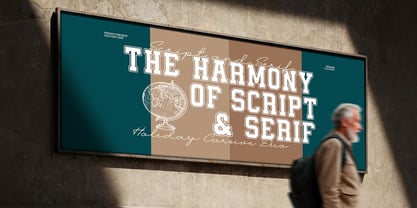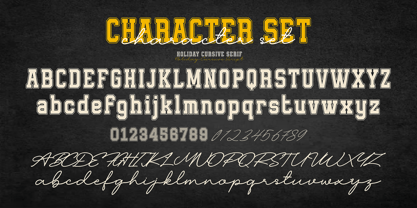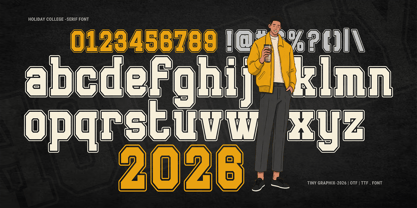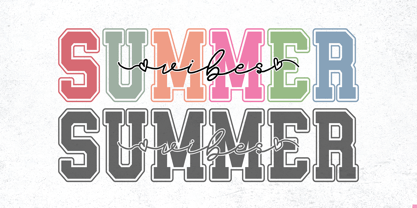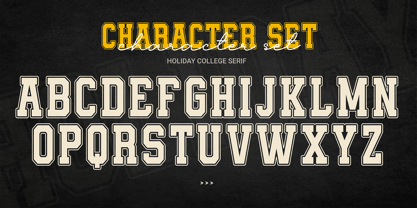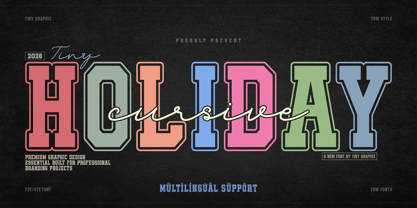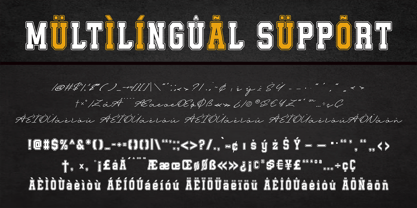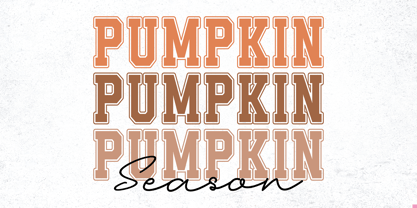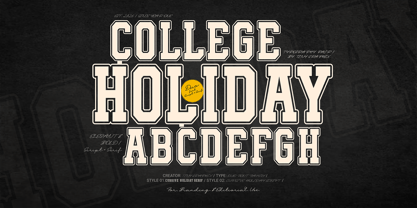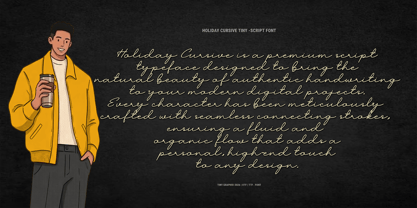
Cursive Holiday
Cursive Holiday Duo is a versatile font pairing designed by Tiny Graphix, specifically curated for high-end branding and modern editorial projects. This collection features a robust, varsity-inspired College Serif and a fluid, organic Cursive Script, offering a balanced visual hierarchy for any design layout.
The Components:
• Cursive Holiday Serif: Characterized by its bold structure and clean lines, evoking a classic yet contemporary athletic aesthetic. It is an ideal choice for impactful headlines, fashion-related concepts, and vintage magazine layouts.
• Cursive Holiday Script: Provides a delicate, handwritten elegance with a natural flow. Perfectly suited for luxury branding, wedding stationery, and sophisticated social media content.
Designed with meticulous attention to detail,
Decorative Swashes: The Cursive Script features elegant lowercase swashes and refined curves, providing a bespoke, custom-lettered look to any project.
Cursive Holiday Duo ensures professional results across both print and digital platforms. The contrast between the sharp serifs and the soft curves of the handwriting adds a layer of exclusivity to logotypes, apparel design, and identity systems.
• Includes extensive multilingual character support for global design projects.
• Precise character geometry to ensure maximum readability.
• Designed specifically for logos, titles, and display purposes.
Cursive Holiday Duo provides the essential typographic tools to create timeless, high-end designs.